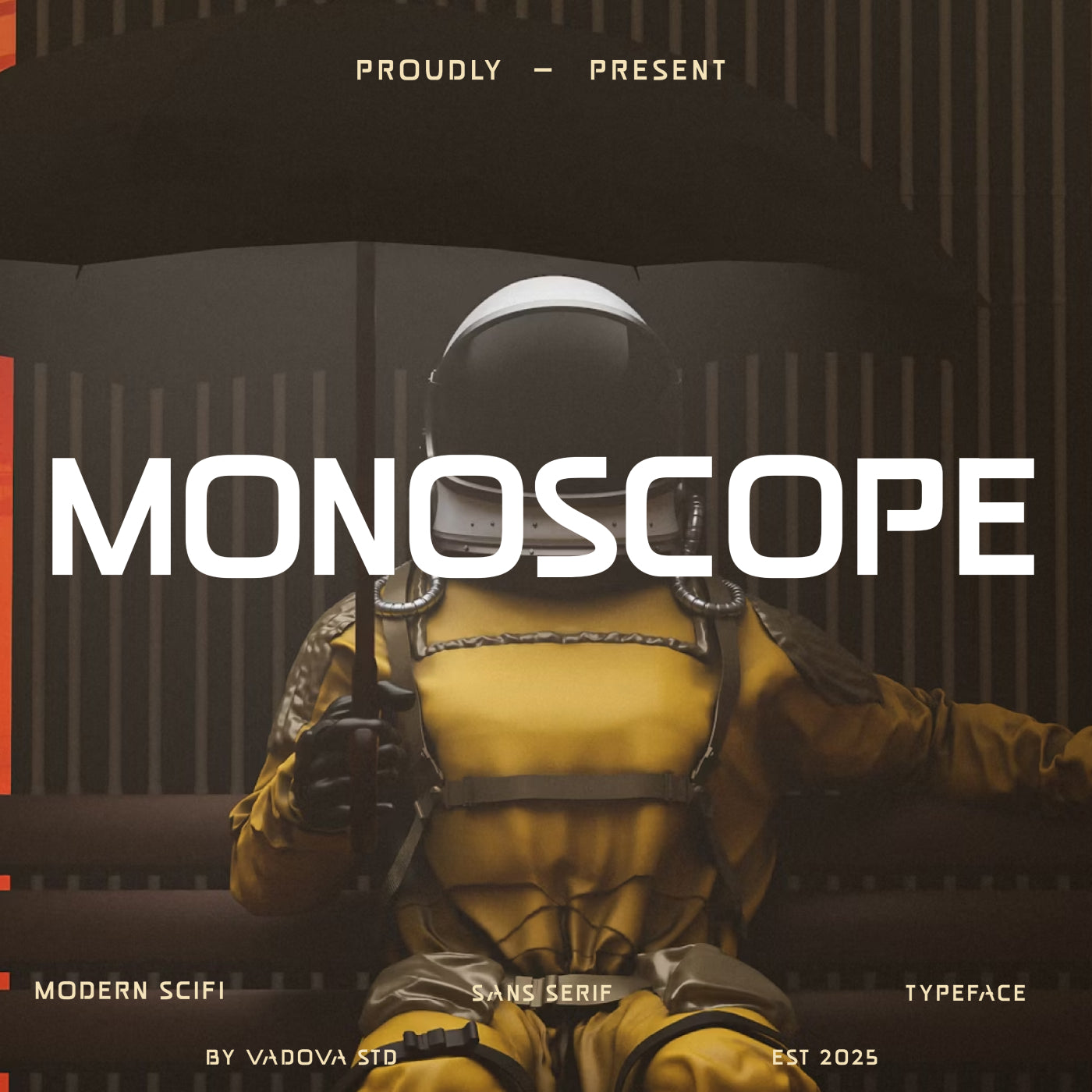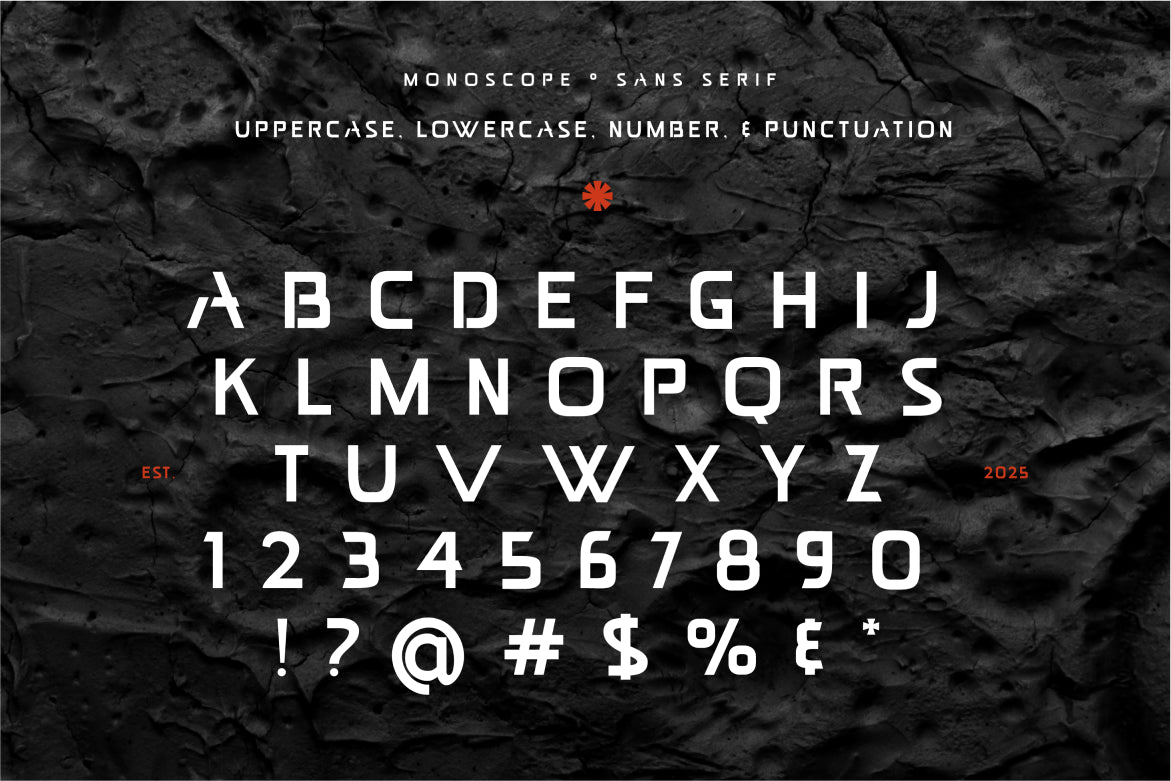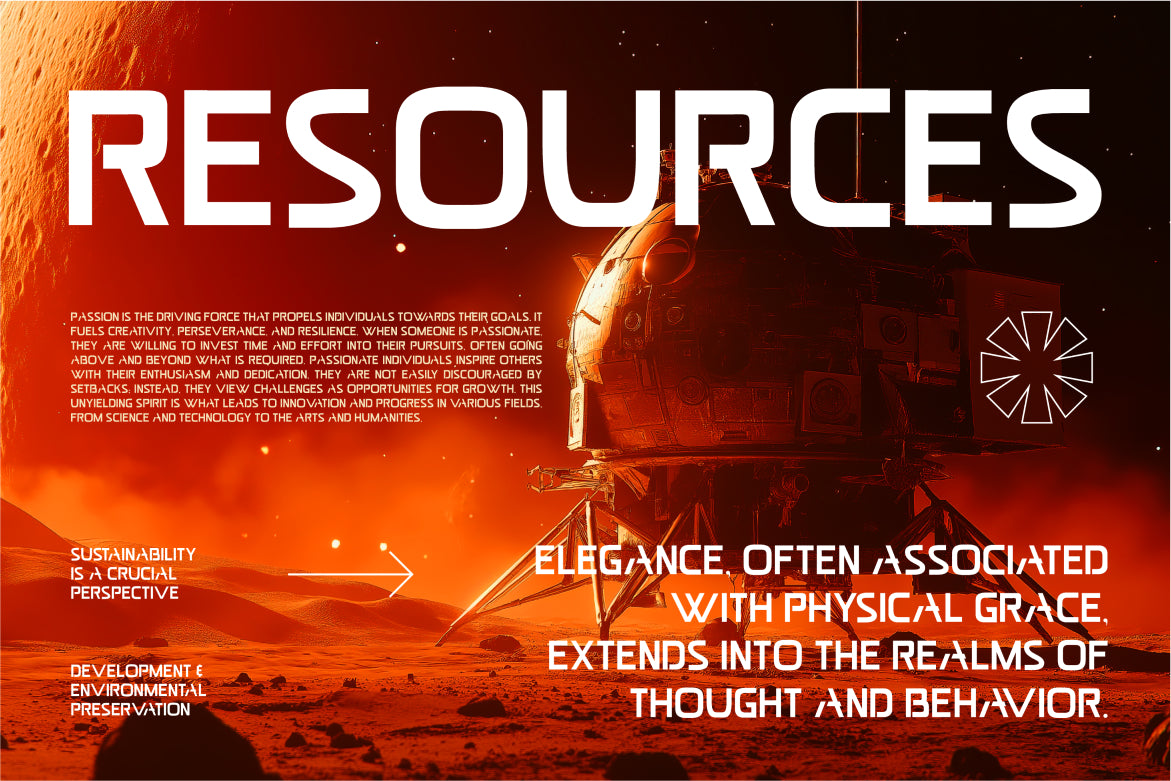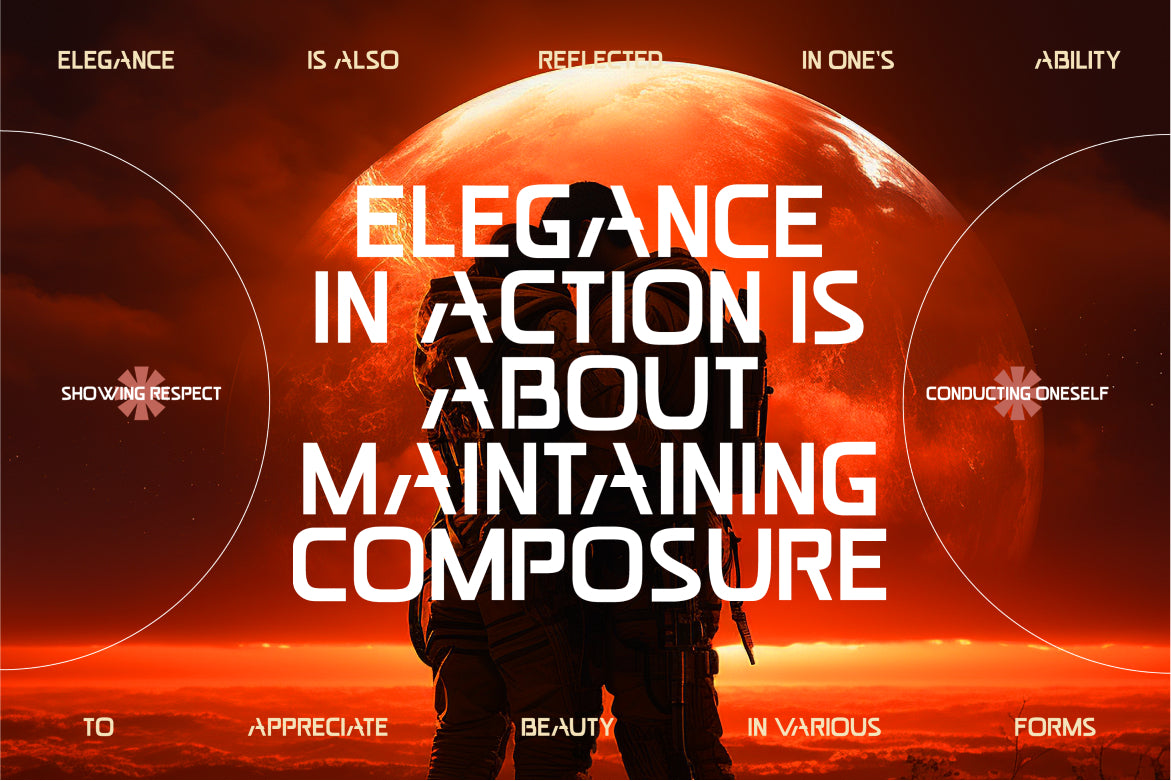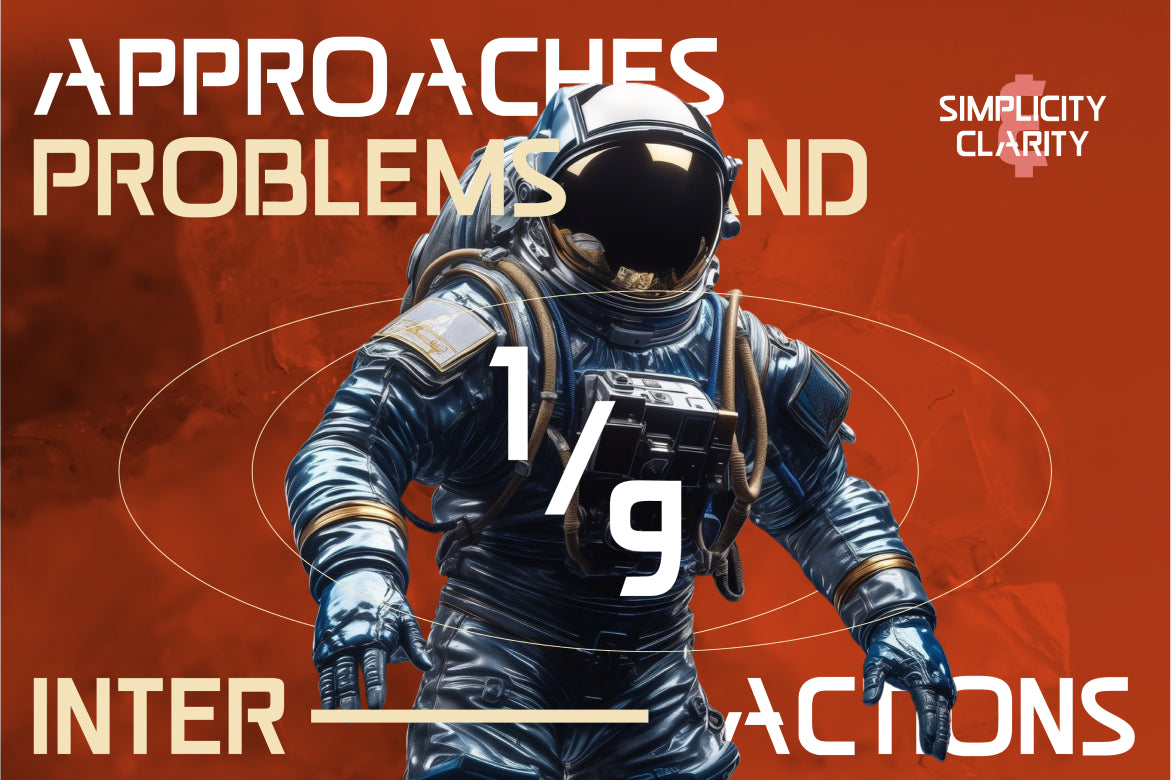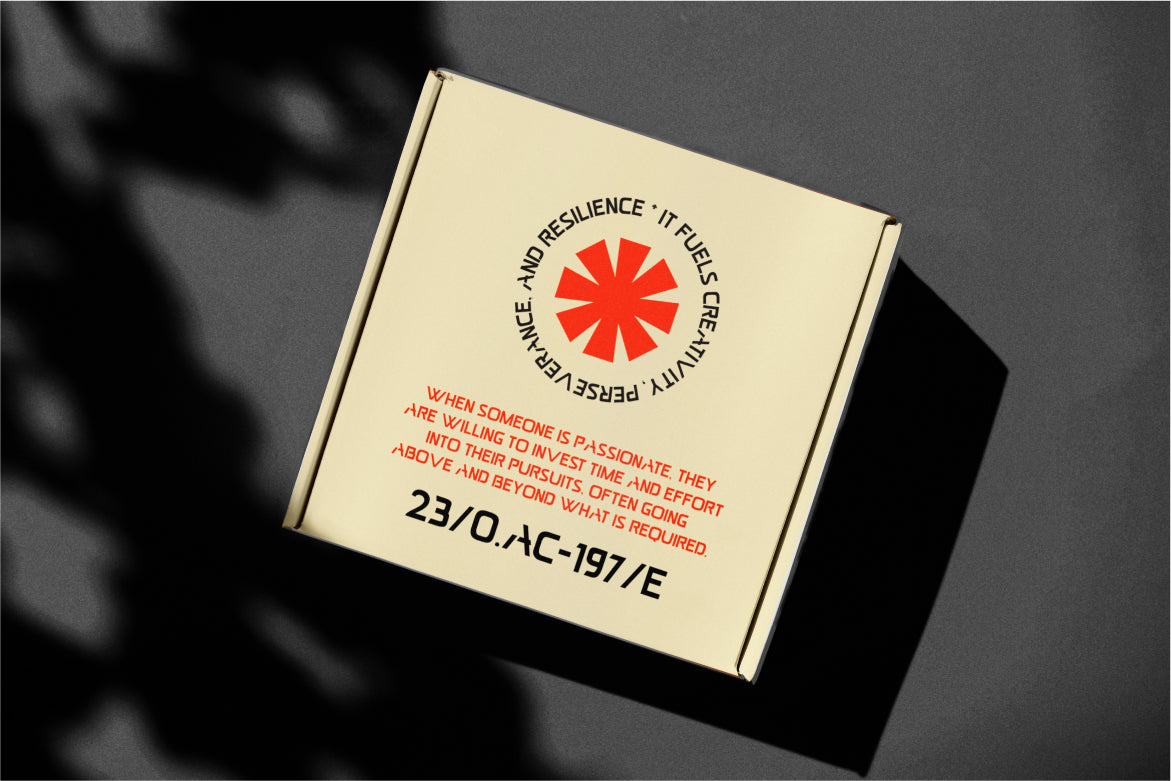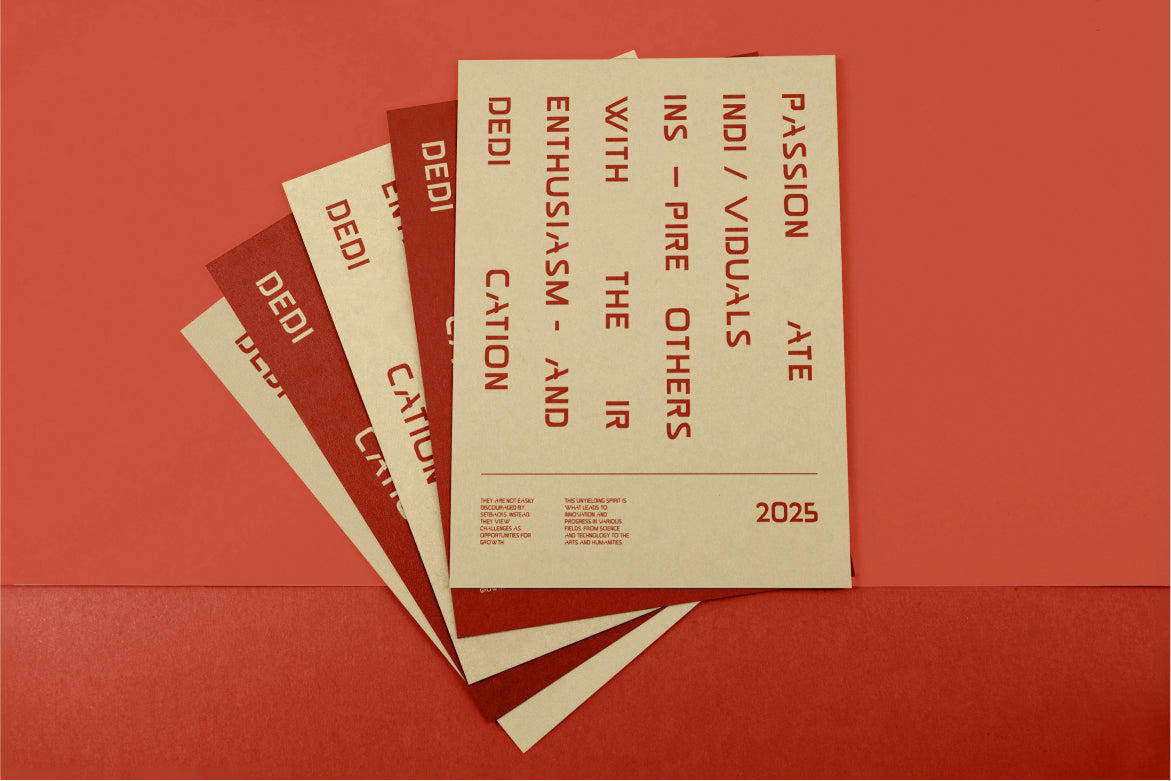
Monoscope Modern Scifi Typeface Font
Monoscope Futuristic Bold Modern Sans Serif is a bold modern sans serif typeface with a futuristic and tech-inspired aesthetic. Its sharp angles and geometric structure make it perfect for technology branding, space-themed designs, and digital interfaces. Designed in all caps with uniform spacing, Monoscope brings a minimalist, modern futuristic feel to any layout. Whether for sci-fi posters or modern UI headlines, this tech font delivers bold impact with clean precision. Embrace the future with Monoscope’s striking, monospaced design.
Suitable for technology startups, gaming interfaces, sci-fi posters, and futuristic branding,futuristic edge, technology branding, futuristic posters, sci-fi themed projects, modern UI/UX interfaces, gaming titles and dashboards, digital displays, space or tech logo design, all-caps tech headlines, Y2K and modern futuristic visuals, cyber or virtual event graphics.
The Monoscope Modern Scifi Typeface Font is a bold, all-caps sans serif typeface featuring a futuristic design with sharp angles and geometric structure. Available in TTF, OTF, and WOFF formats, it includes uppercase characters, numerals, and punctuation, making it suitable for various digital and branding applications.